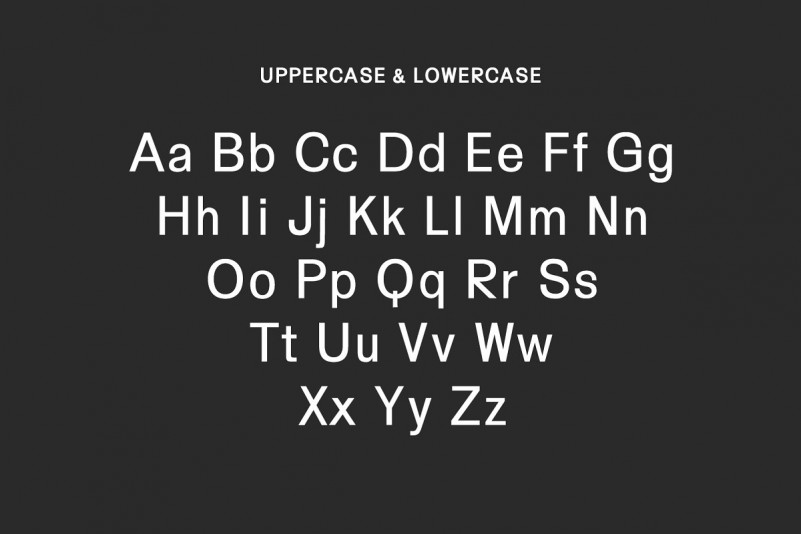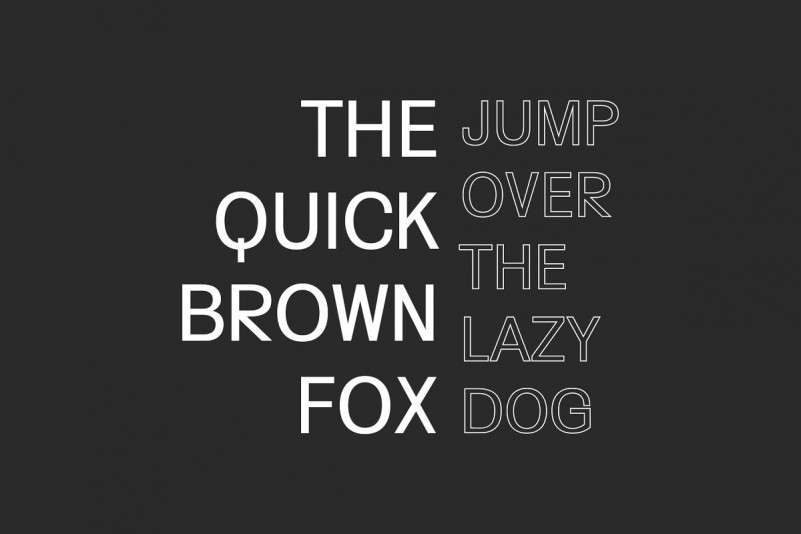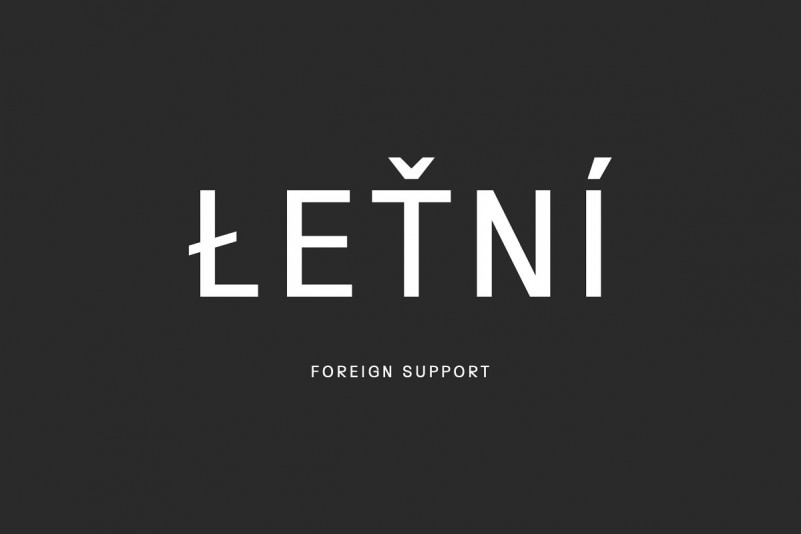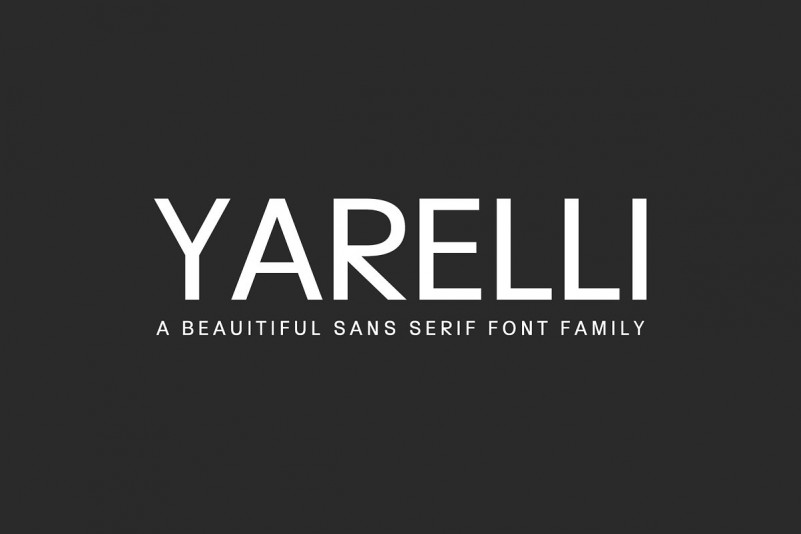
Yarelli Sans Serif Font Family
Yarelli is a creative yet simple sans serif typeface that looks stunning in every context. It contains 3 weights. Yarelli is great for magazine, logos, invitations, text, presentations, posters, notices, titles, name card, web layouts, headers, branding, weddings, social media, product design, stationery and advertising, and other any business related.